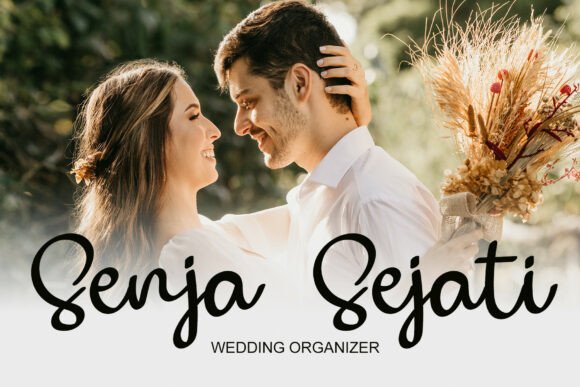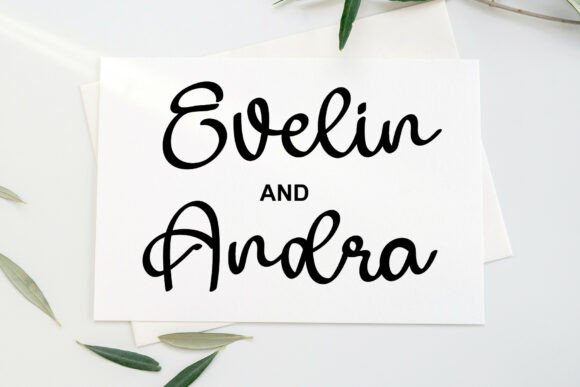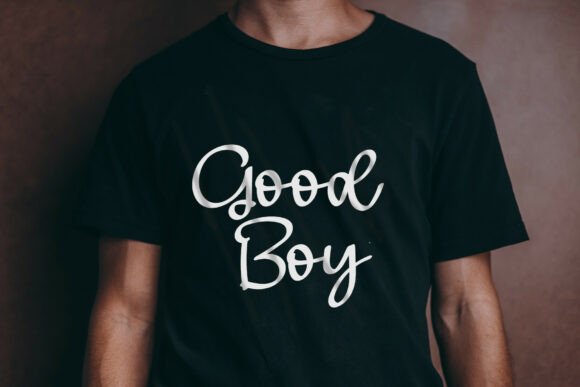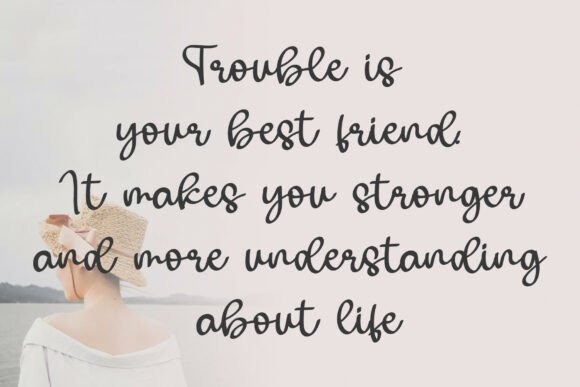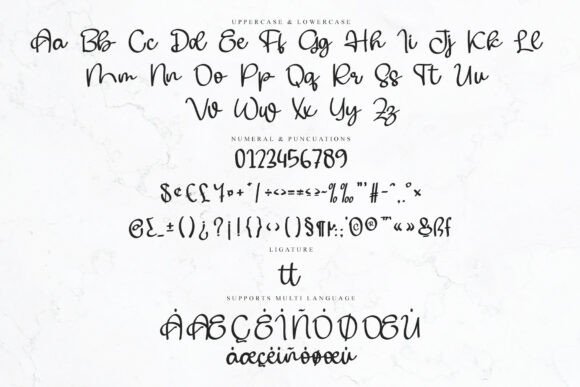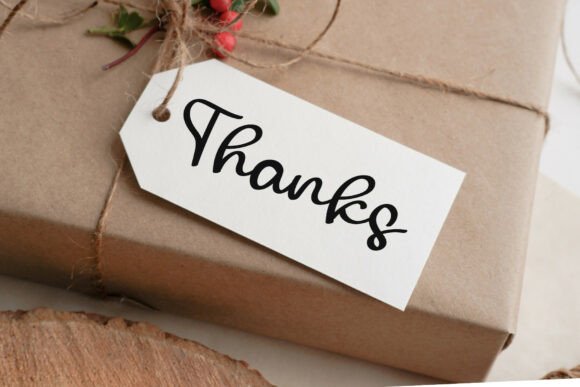
Introduction to Easter Delight Font
Easter Delight is a elegant script handwriting font that combines fluid strokes with a commanding presence.
Designed to be both graceful and strong, this font exudes confidence and sophistication, making it perfect for projects that require a font that is authoritative yet stylish With its smooth curves and dynamic flow, Stylish Girls adds a touch of personality and power to any design.
Key Features of Easter Delight Font
Why Choose Easter Delight Font?